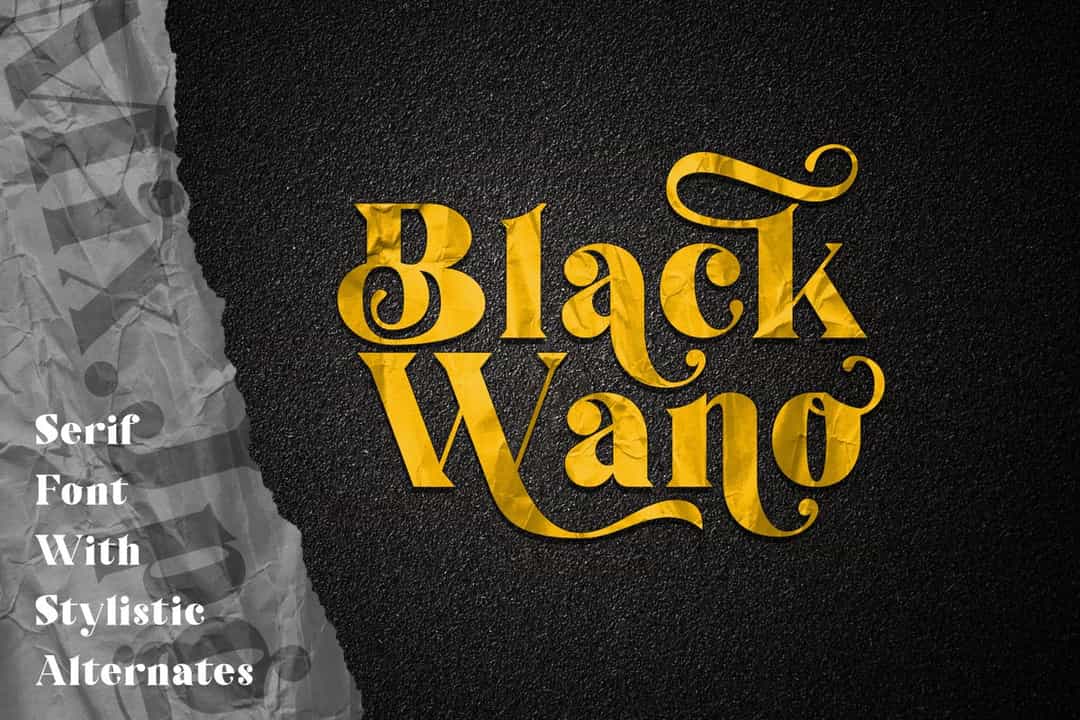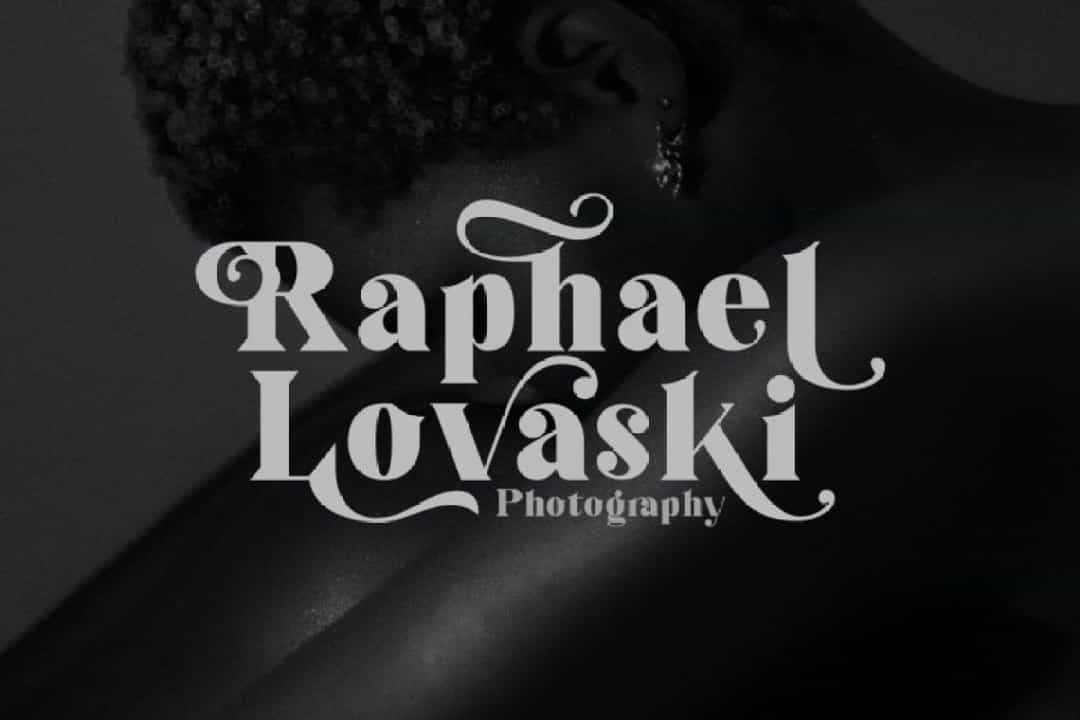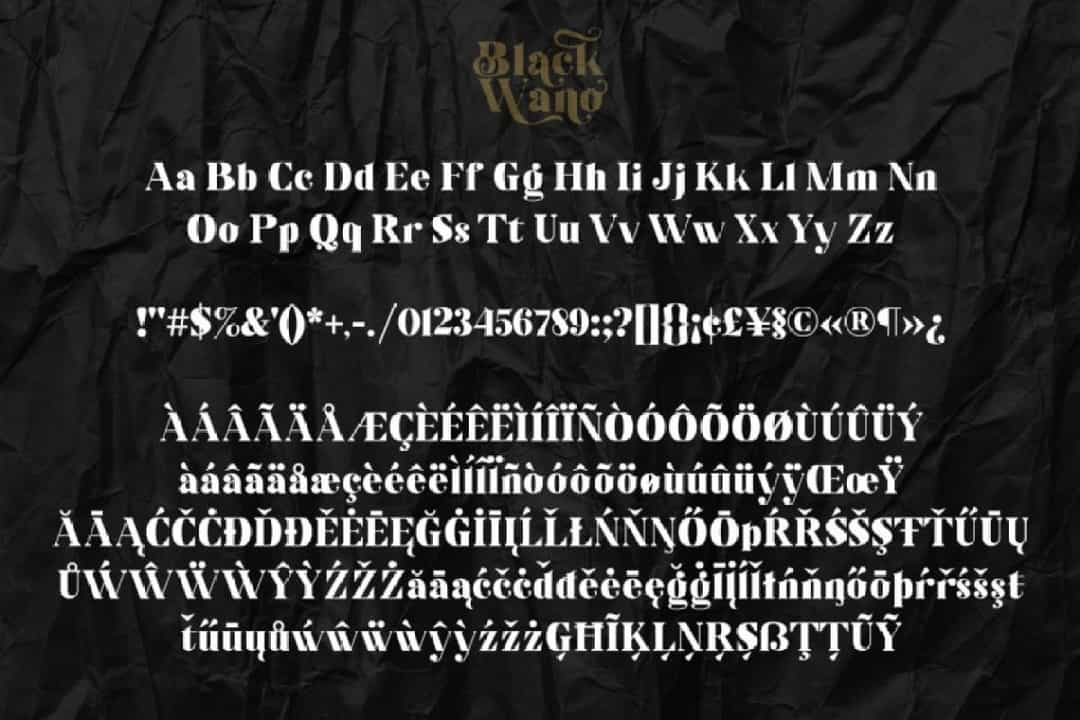
Black Wano is a stylish modern serif font based on the concepts of high fashion brands. At large sizes it looks great and when viewed at text size readability is improved by a massive amount. Suitable for logos and clothing branding and packaging for the products Magazine headers or as the text to be placed on any image background, Black Wano is perfect for the text overlay in every case.